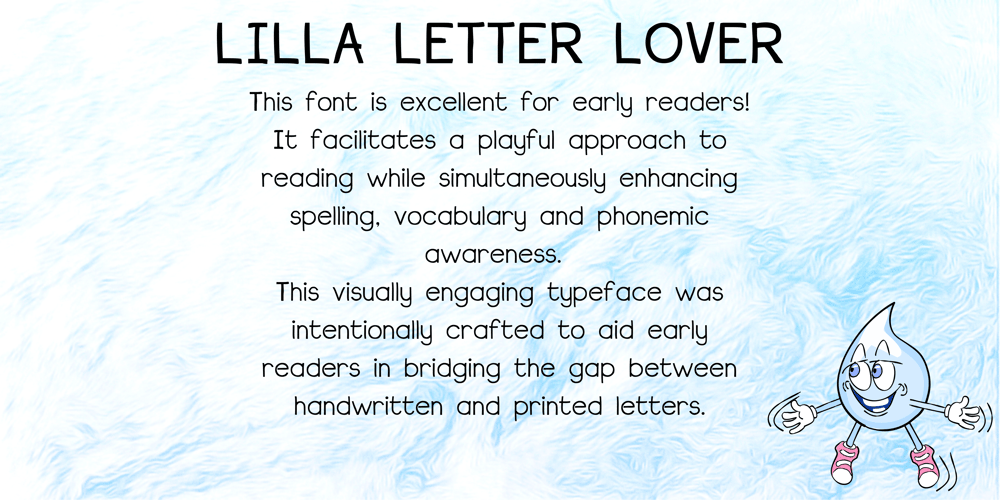
Lilla Letter Lover Font Family was designed by Peet Bekker and published by Letterground Foundry. Lilla Letter Lover contains 1 styles and family package options. “Lilla Letter Lover” is a captivating font designed specifically for children’s books. This delightful typeface brings an element of playfulness to reading, while also enhancing phonemic awareness. The font’s remarkable strength lies in bridging the gap between handwritten and printed letters. For early readers, this transition can be challenging, but “Lilla Letter Lover” simplifies the process. It merges the familiar aspects of handwritten letterforms with the clarity of printed text, providing a seamless reading experience. This feature ensures that children can comfortably navigate both forms of writing, enhancing their overall literacy skills. The whimsical charm of “Lilla Letter Lover” instantly captures young readers’ imaginations. Each letter is thoughtfully designed with basic shapes and simplicity in mind, for an experience where letters come to life, fostering a love for reading and storytelling. Additionally, “Lilla Letter Lover” offers a unique opportunity for sight-based spelling learning. The visually distinctive presentation of words helps young readers to develop a strong visual memory of spelling patterns. This visual association enables them to recognize and recall words with ease, strengthening their reading and writing proficiency. In summary, “Lilla Letter Lover” is not just a font; it is an enchanting gateway to make reading a joyous adventure for children of all ages.